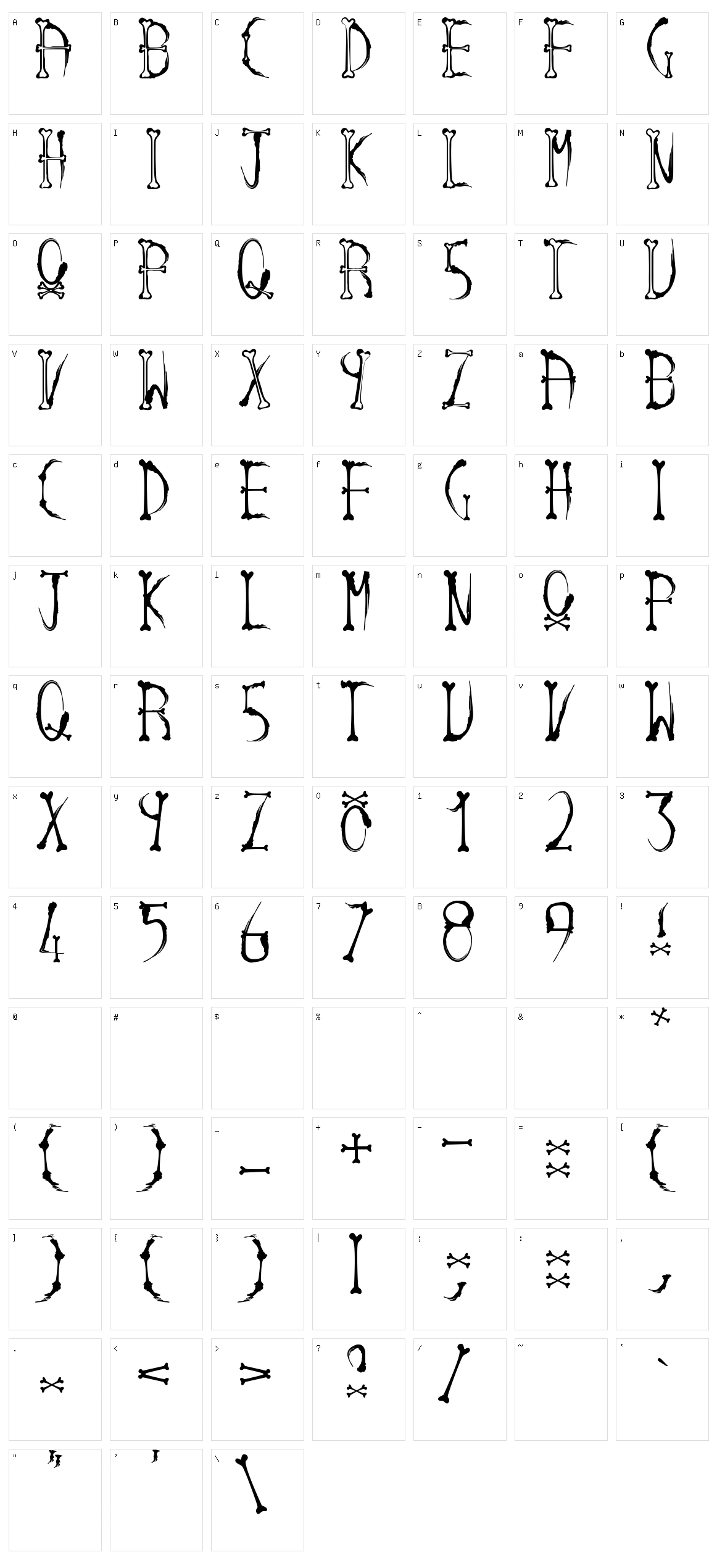
The free font Ink And Bones is carefully designed by MeCreativa, showcasing a thoughtful balance of creativity and usability and falls under the Halloween font style. When you download the ZIP file, it contains only 51.01 KB of font files, making it lightweight and quick to download. Please review the license details below to understand permitted usage and distribution rights. If license information is not available, we recommend using this font for personal projects only or contacting the author directly for commercial usage permissions.
Ink and Bones font has been designed by Michela Ferretti MeCreativa (www.mecreativa.com)